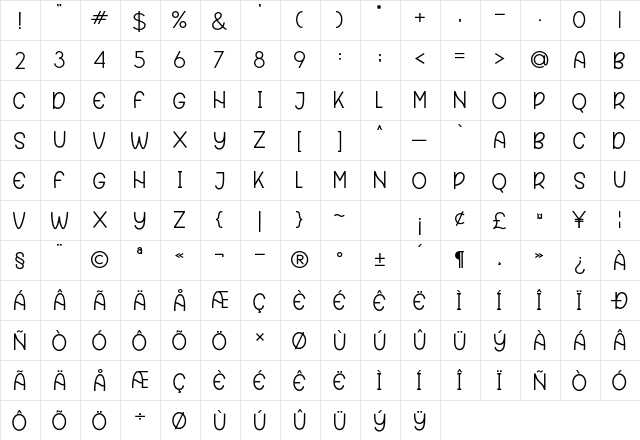
Great Feeling Sans Regular
| Designer | Rangga Singgih Subekti |
Design Context for Great Feeling Sans Typeface
Great Feeling Sans takes a measured approach to typography — its balanced proportions and neutral character make it a reliable workhorse for both digital and print work.